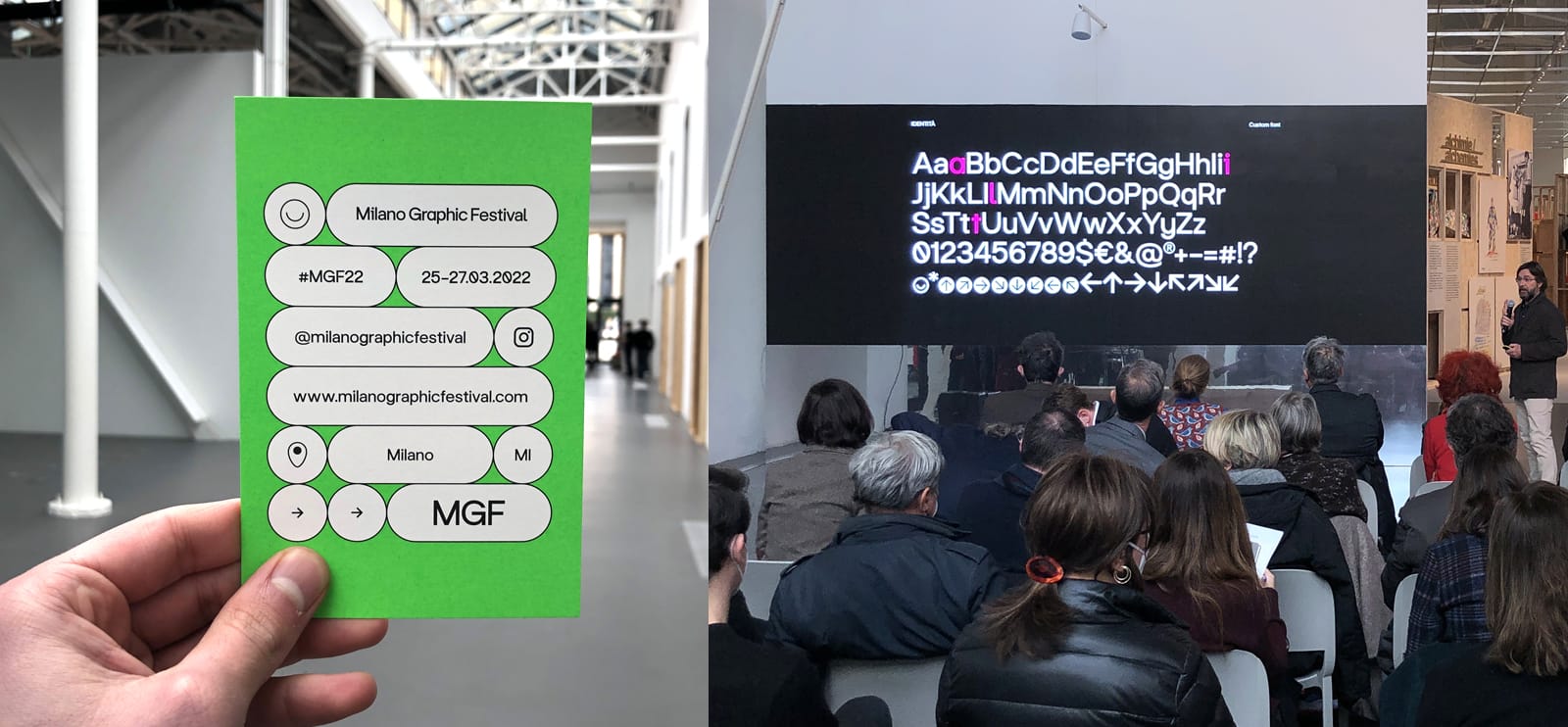
MGF Sans
Designed for the 2022 Milano Graphic Festival, and then extended to its successor BIG, this contemporary sans echoes the sparkling Milan of the booming 1960s and the rigour of the Swiss style.
Fabrizio Falcone Alex Bossi
MGF: the Milanese cut
MGF Sans was born as the custom face of Milano Graphic Festival, the first widespread event of graphic design, illustration and visual cultures held in Milan, 25–27 March 2022.
Designer Fabrizio Falcone – along with festival director Francesco Dondina – was looking for a display face evoking the international achievement of the Swiss Style and the golden age of Milanese graphic design. The result is MGF, a display face somehow reminiscent of the 1960s Milan design scene and then celebrating the shapes of the most representative typeface of those years, Helvetica and its Italian would-be competitor Nebiolo’s Forma, conceived and designed by Aldo Novarese and ‘The Milanese Dream Team’.
Specimen of Forma hot-metal typeface. Its first series were released by the Italian type foundry Nebiolo in 1969.
A contemporary geometric grotesque
MGF Sans comes with slanted italics and two weights, Regular and Bold, and it is available as a variable font too. Its main feature of MGF is its combination of the geometric and Grotesque sanserif styles: ‘We developed a grotesque with a clear geometric structure, as can be seen in the alternates of a i, t, l and in the squared curves of letters such as f or j. These design decisions allowed for a contemporary output playing with the main features of Swiss typography: big x-height, tight spacing, wide capitals of uniform width, etc.’
MGF’s character set includes 16 directional arrow glyphs (8 outside the circle, 8 inside the circle) that recall similar details of Massimo Vignelli and Bob Noorda’s design for the New York subway, and that today, says Falcone, ‘look so much like a smiling emoji’.
Left. Signage for New York subway, designed by Massimo Vignelli and Bob Noorda in the early 1970s. Right. Signage for Metropolitana Milanese, also designed by Noorda in 1962–1963.
From Milano Graphic Festival (MGF) to Biennale Internazionale di Grafica (BIG)
2022 Milan Graphic Festival intended to be a catalyst for ideas and relations surrounding the world of visual communication and also to emphasise its fundamental role in the context of urban regeneration and its overall impact on citizen wellbeing. Thanks to its success, the new BIG – Biennale Internazionale Grafica was born. And its custom face MGF Sans was updated.
MGF in use: shopper and poster.
To meet the needs of BIG’s visual identity project, Fabrizio Falcone with Alex Bossi as type developer, updated the Milan Graphic Festival custom face by adding to MGF Sans a bold weight and the related slanted italics, and developing the variable font.
Biennale Internazionale Grafica is a Milan-based festival dedicated to communication design and visual cultures that aims to promote visual communication design outside the inner circle of experts.
Regular, Regular Slanted, Black, Black Slanted
Alternate a i l t 0 (SS 01)